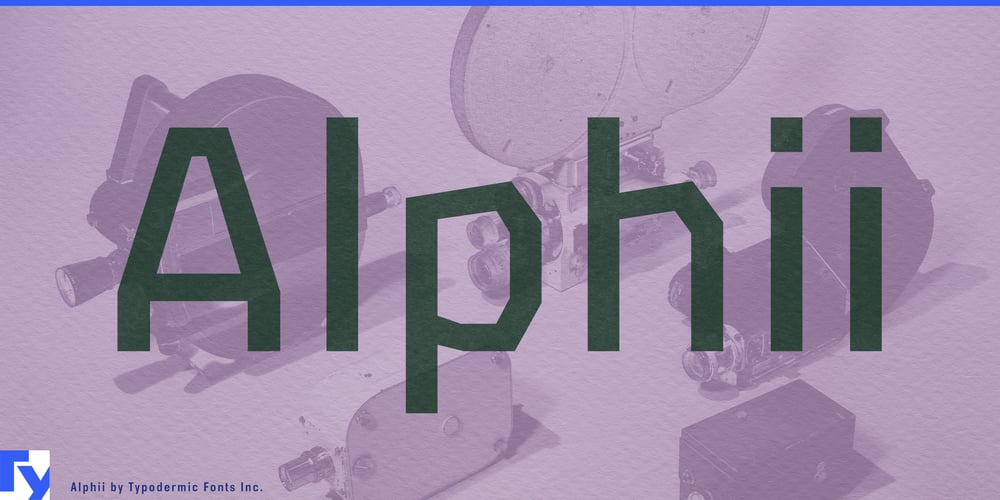
Alphii
Alphii font
Alphii Font Family was designed by Ray Larabie and published by Typodermic. Alphii contains 8 styles and family package options. Introducing Alphii, a cutting-edge typeface that redefines angular sophistication in typography. This striking font from Typodermic Fonts marries razor-sharp precision with minimalist elegance, creating a visual language that commands attention and exudes authority.Alphii’s distinctive character lies in its unapologetically angular forms. Clean, straight lines intersect with purposeful geometry, crafting letterforms that are as visually arresting as they are functional. This bold approach to typography results in a typeface that’s not just seen, but felt—each character a statement of intent and clarity. Despite its avant-garde aesthetic, Alphii maintains exceptional readability, making it the ideal choice for conveying complex technical information with style. Its crisp edges and open counters ensure clarity even at smaller sizes, while its confident angularity shines in larger display applications.Alphii comes in four meticulously crafted weights, each with corresponding italics, offering a spectrum of expressive possibilities. From sleek corporate identities to cutting-edge tech interfaces, Alphii adapts seamlessly, always maintaining its core of cool, calculated precision. This versatile typeface supports a wide range of Latin-based writing systems, ensuring your angular message maintains its edge across linguistic boundaries. Whether you’re designing for a Finnish architecture firm or a Portuguese aerospace company, Alphii speaks the universal language of modern sophistication.For designers seeking to infuse their work with a sense of contemporary sharpness and technical prowess, Alphii provides the perfect typographic solution. It’s more than just a font—it’s a design tool that cuts through visual noise with laser-like focus, leaving an indelible impression on your audience.Embrace the power of angular elegance with Alphii. Let its cool, calculated forms elevate your designs from the everyday to the extraordinary, creating visual experiences that are as memorable as they are modern.